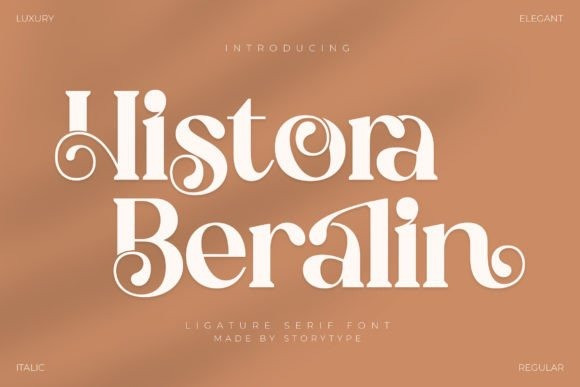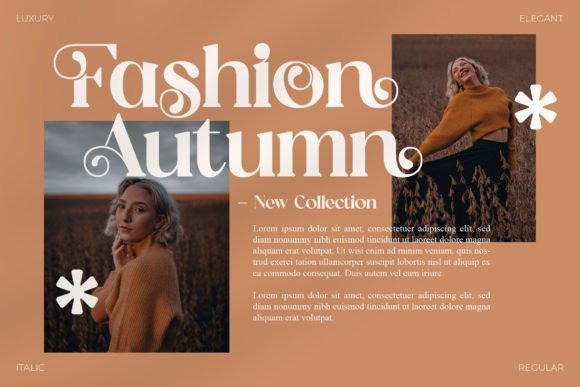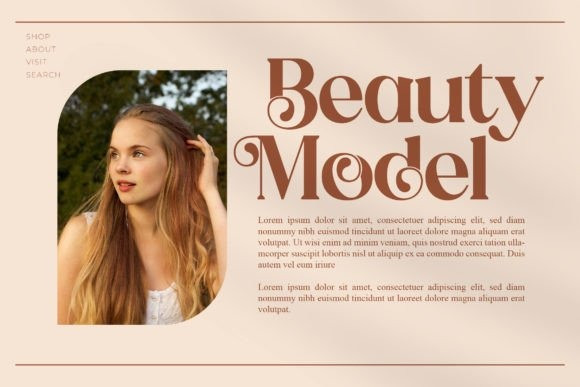
Histora Beralin Font
Histora Beralin is a classic serif font with a unique style and modern look. It is perfect for elegant and luxury logos, book or movie title design, fashion brands, magazines, clothes, lettering, quotes, and so much more.